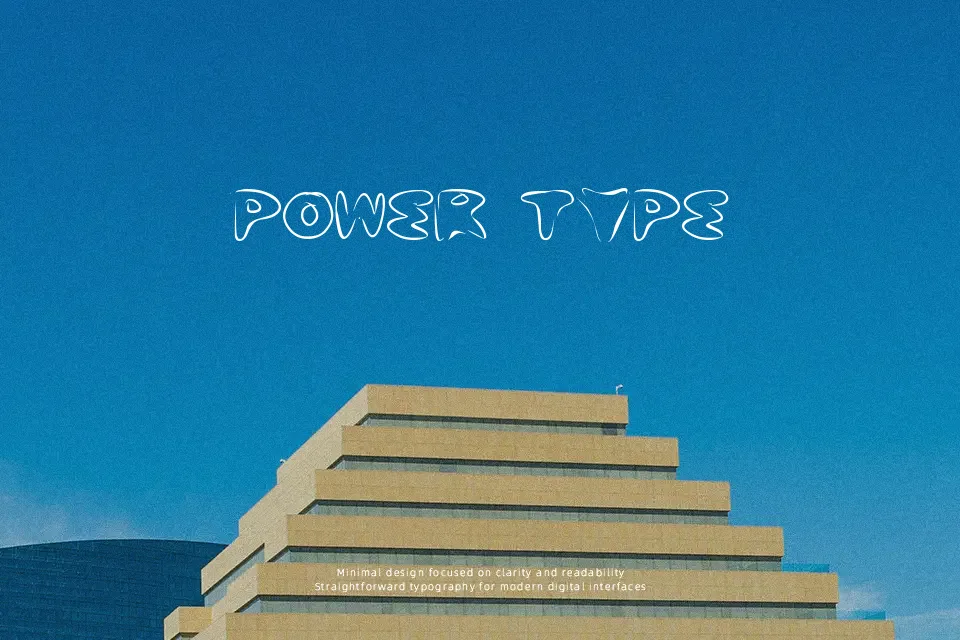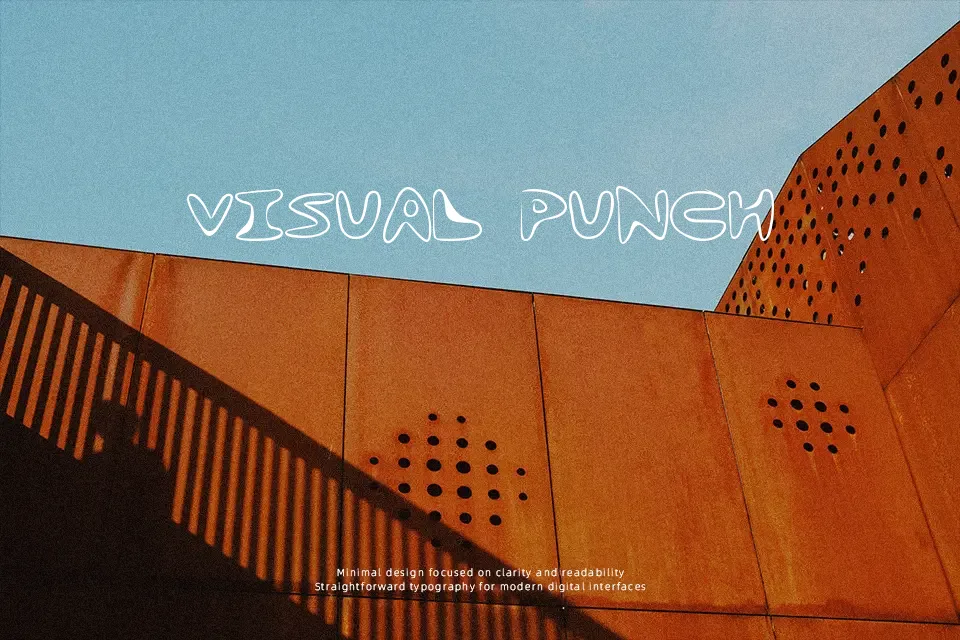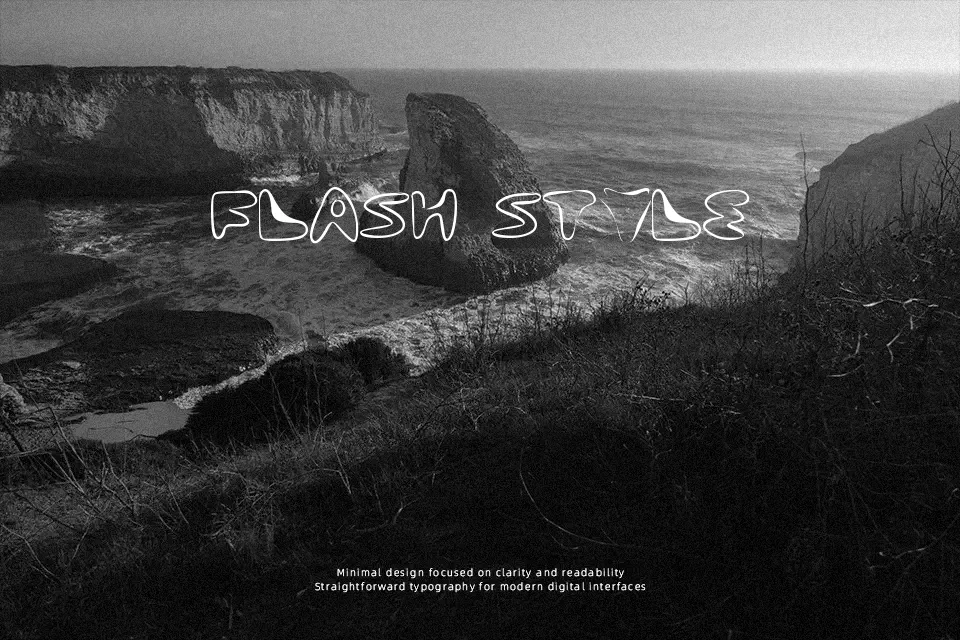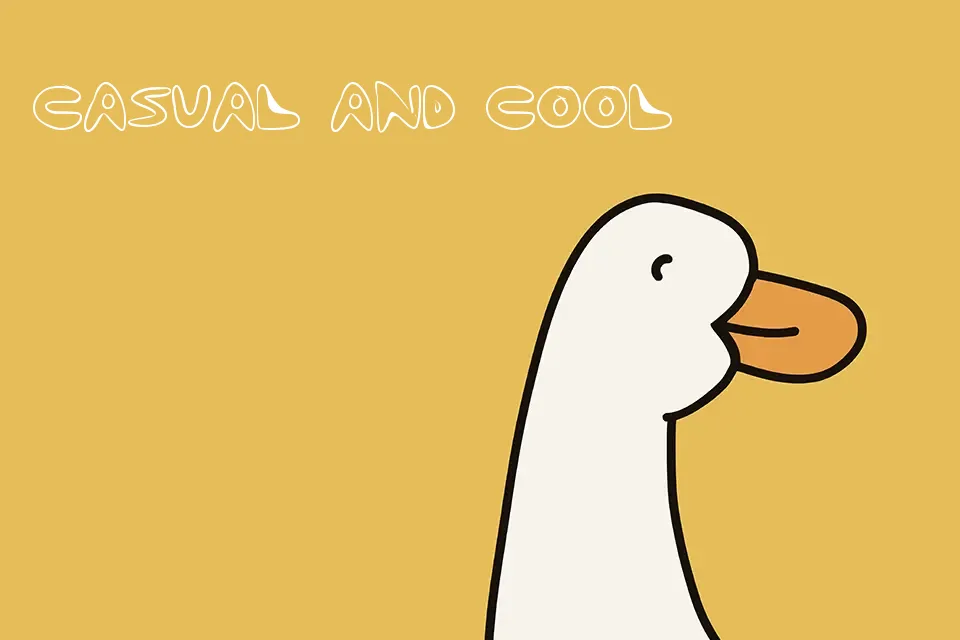
Doges Walk Font
Doges Walk Font has thin outlined strokes, rounded bubble-like construction, and a deliberately uneven rhythm that feels sketched by hand rather than engineered. The spacing is open, which helps the letters breathe at larger sizes, especially in posters, kids graphics, casual logos, and social media titles. It gives off a playful, cartoonish tone with a slightly internet-meme energy. Where it works best is in short phrases that can lean into its loose personality. It is much less convincing in body copy, formal branding, or anything that needs a crisp, compact texture, because the hollow structure starts to feel flimsy at small sizes.
kids posters,casual display headlines,meme style graphics,novelty logos
body text,formal branding,dense packaging copy,serious editorial layouts
Perfect for headline, kids, and poster, with a creative and decorative style.